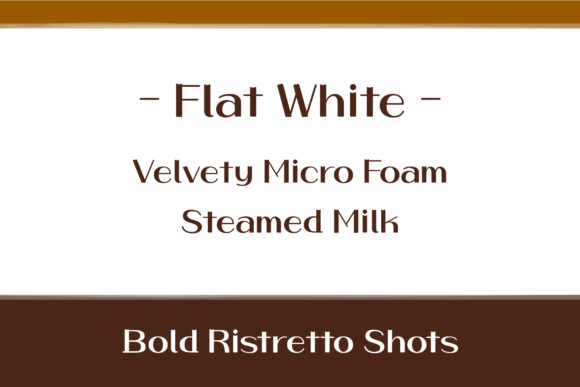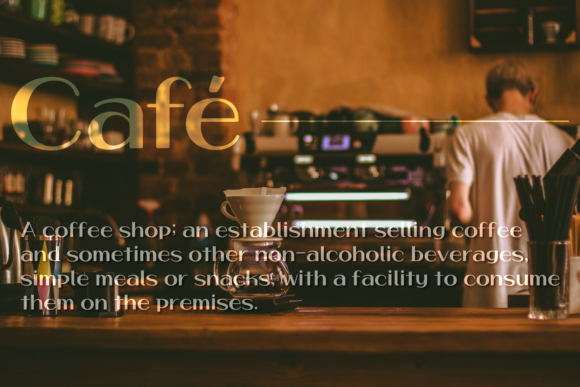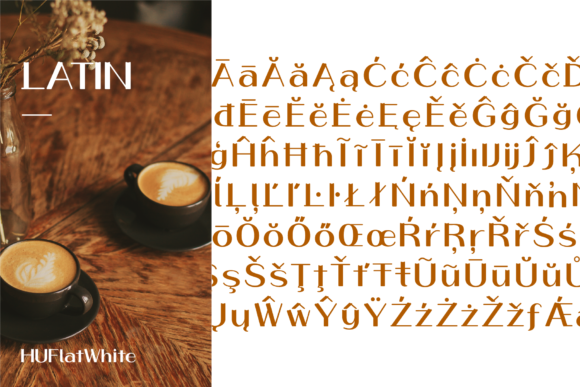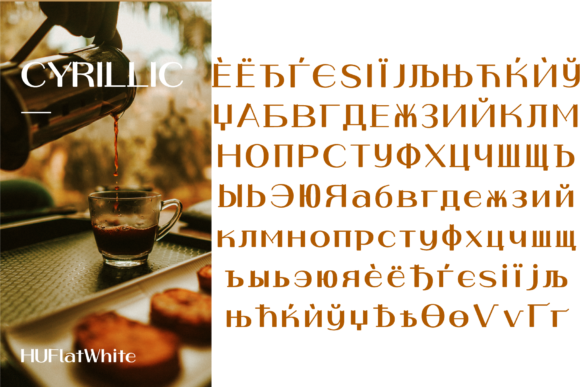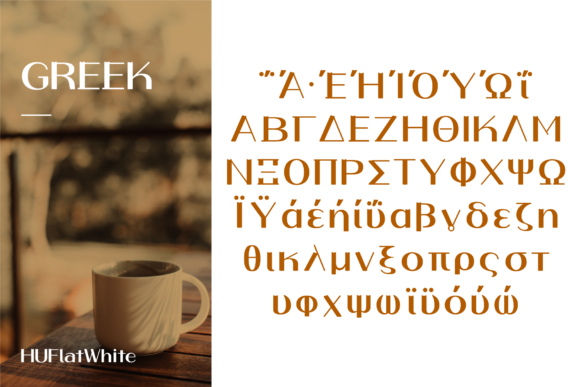
Introduction to HU Flat White Font
Have you ever stared at a blank page, struggling to find the perfect font to bring your creative project to life? I know I have! The blank canvas can be intimidating, but with the right design resource, all your worries disappear. Today, I’m excited to introduce you to the HU Flat White Font, a retro vibe headline display font that will make your designs stand out.
This high-quality font is perfect for adding a touch of sophistication and elegance to your projects. Whether you’re creating a logo, branding, or ads, HU Flat White Font is sure to impress. With its versatility and timeless design, you can use it for a wide range of applications, from blog posts to invitations and decorations. And the best part? It’s available for free download, making it an invaluable asset for designers of all levels.
As a designer, you know how valuable a great font can be in elevating your work. HU Flat White Font is no exception, offering a transparent background and a unique, eye-catching style that will set your designs apart from the rest.
Key Features of HU Flat White Font
- High-quality design resource for creative projects, ideal for minimalist and modern designs.
- Transparent background, making it easy to customize and blend with any background image or color.
- Designed with a clean and simple aesthetic, perfect for creating a professional and elegant look in any creative project.
- Supports a wide range of languages, making it a versatile design resource for international projects.
- Resolution-independent, ensuring crisp and clear text display regardless of the screen resolution or device.
Honest Review: HU Flat White Font
I recently had the opportunity to work with the HU Flat White Font, and I’m excited to share my honest review with you. As a designer, I’m always on the lookout for high-quality design resources that can elevate my creative projects. In this case, the HU Flat White Font did not disappoint.
What works well: ✨ The font is incredibly versatile, with a clean and modern aesthetic that works well for a variety of design applications. The transparent background is a nice touch, making it easy to use in designs with complex backgrounds. The font is also highly customizable, allowing me to adjust the size, color, and style to fit my needs.
What doesn’t work well: ⚠️ While the font is high quality, it’s not without its limitations. The font family is relatively small, with only a few weights and styles to choose from. This may be a drawback for designers who require a wider range of options for their projects.
Tips for Getting the Most Out of HU Flat White Font
HU Flat White Font is commonly used in various design projects, including logos, business cards, and brochures. Its high quality and design resource capabilities make it an ideal choice for designers looking to create visually appealing designs with ease.